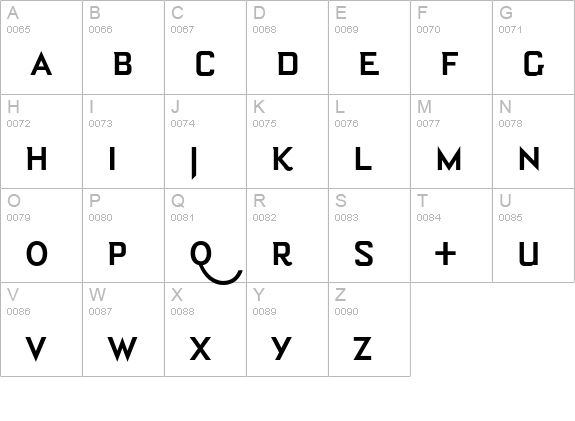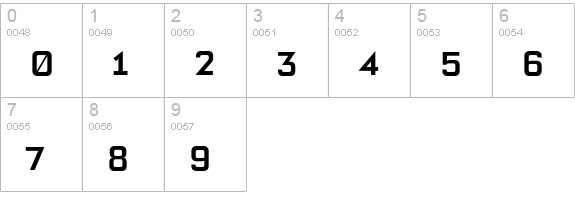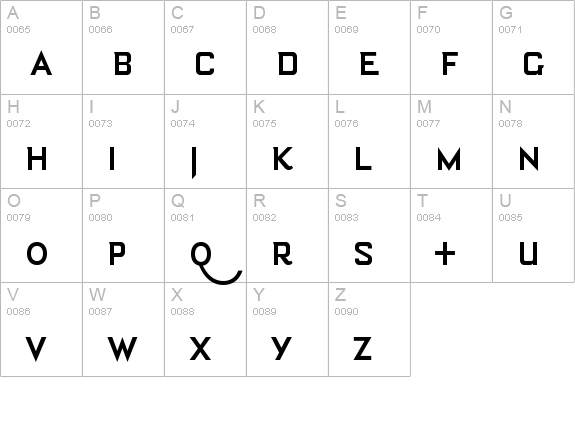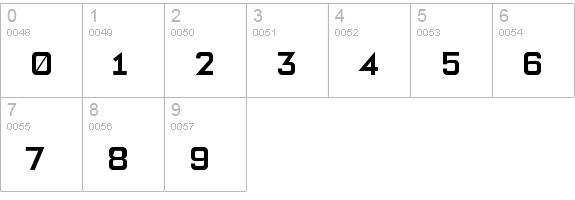
Bourgeois BoldAlt Font Details
Bourgeois BoldAlt font exudes sophistication and elegance with its sleek, modern design. This versatile typeface is perfect for creating eye-catching headlines, logos, and branding materials. Its bold and striking appearance commands attention while maintaining a sense of refinement. What sets Bourgeois BoldAlt font apart is not only its stunning aesthetics but also its generous availability. This premium font is offered for free download exclusively at FontsMarket.com. Whether you're a designer, marketer, or creative professional, Bourgeois BoldAlt font is a must-have addition to your font library. Elevate your projects with this exquisite typeface and make a lasting impression with ease.